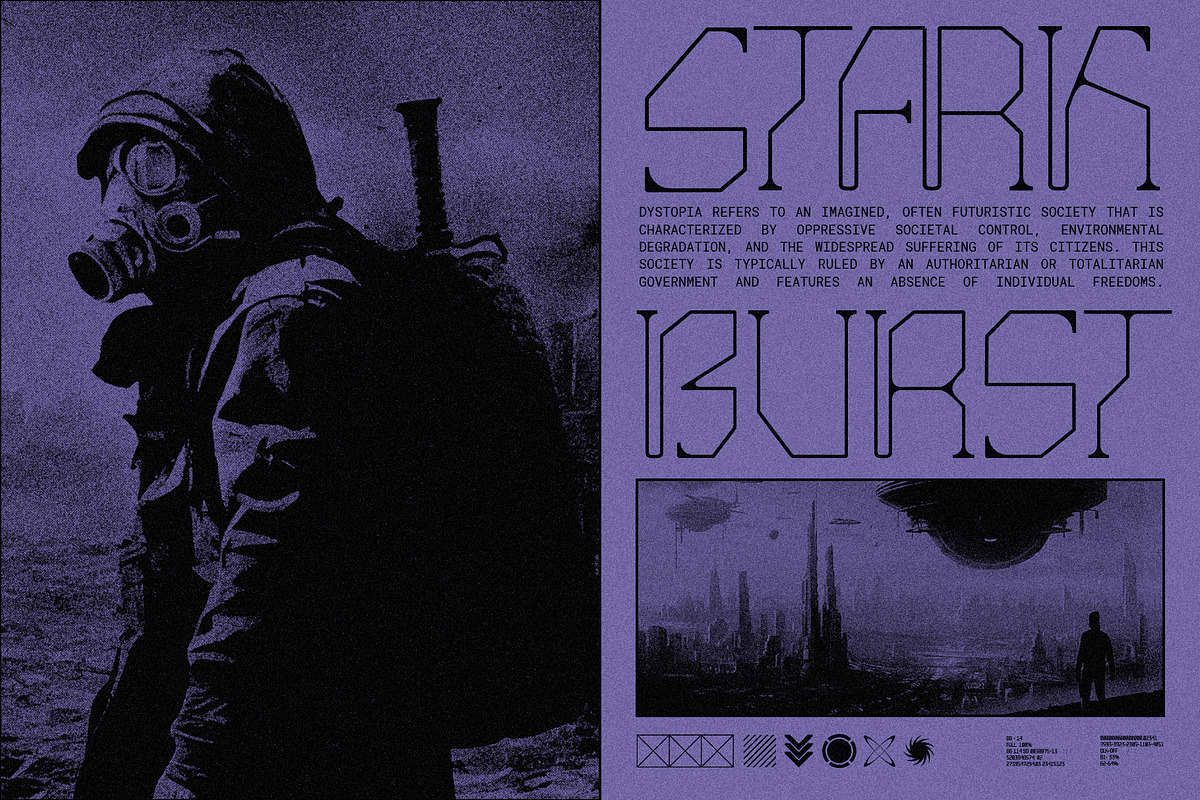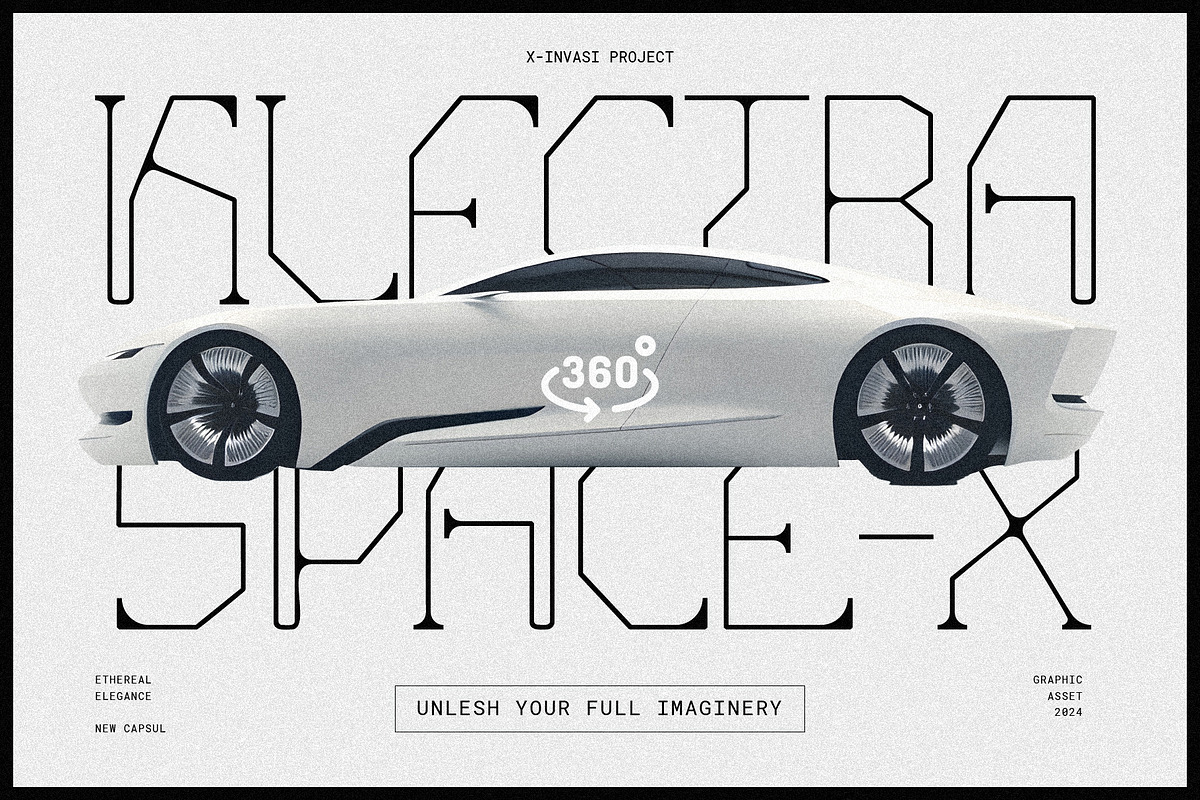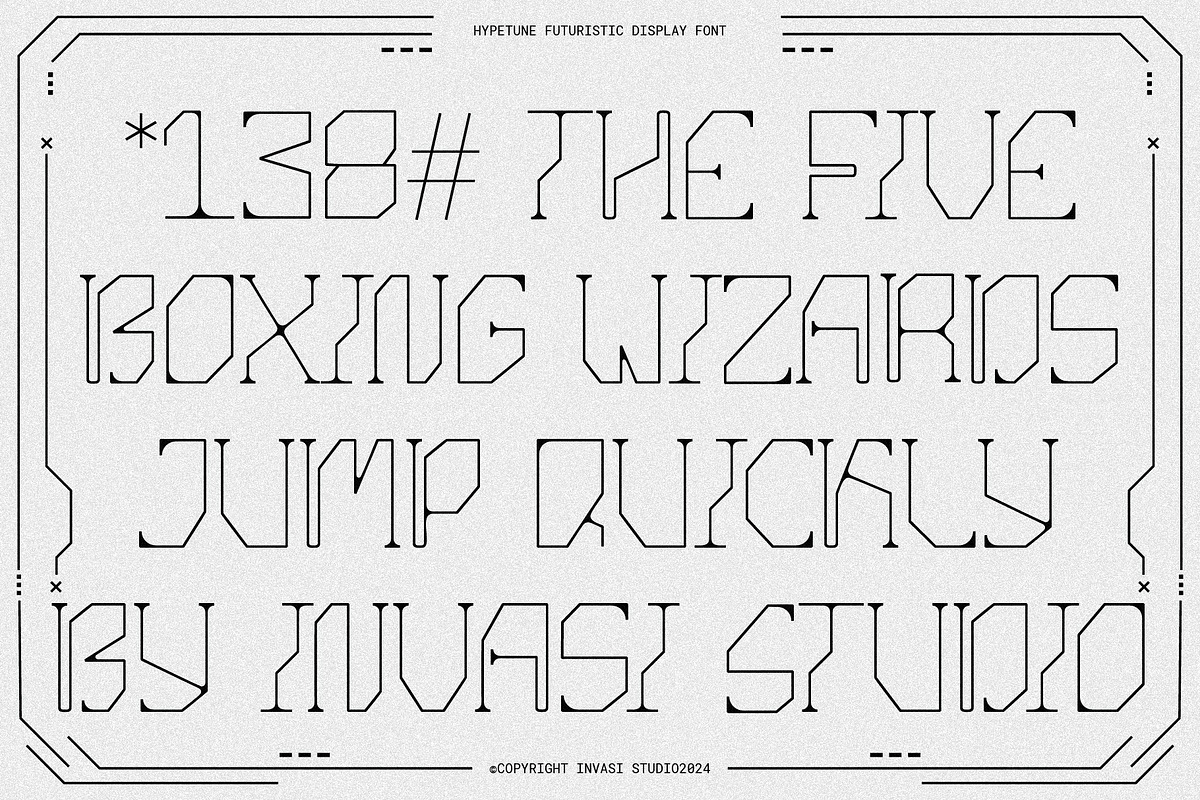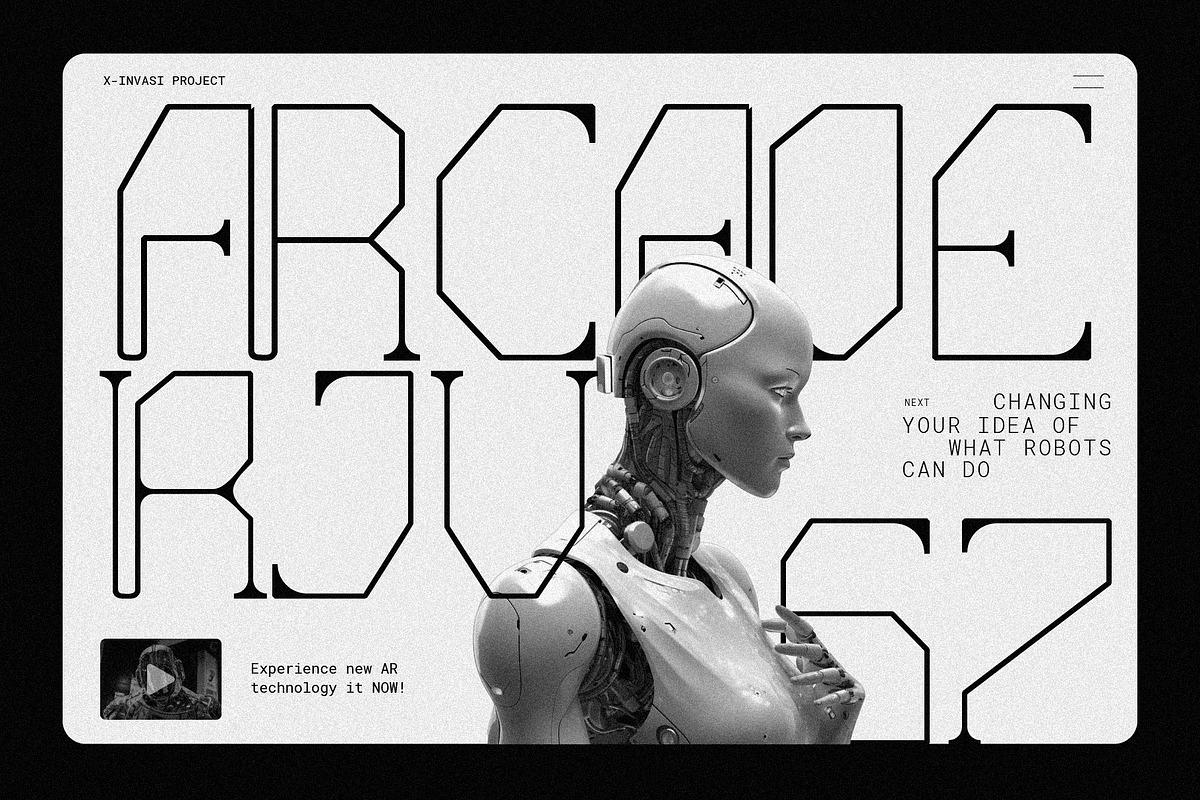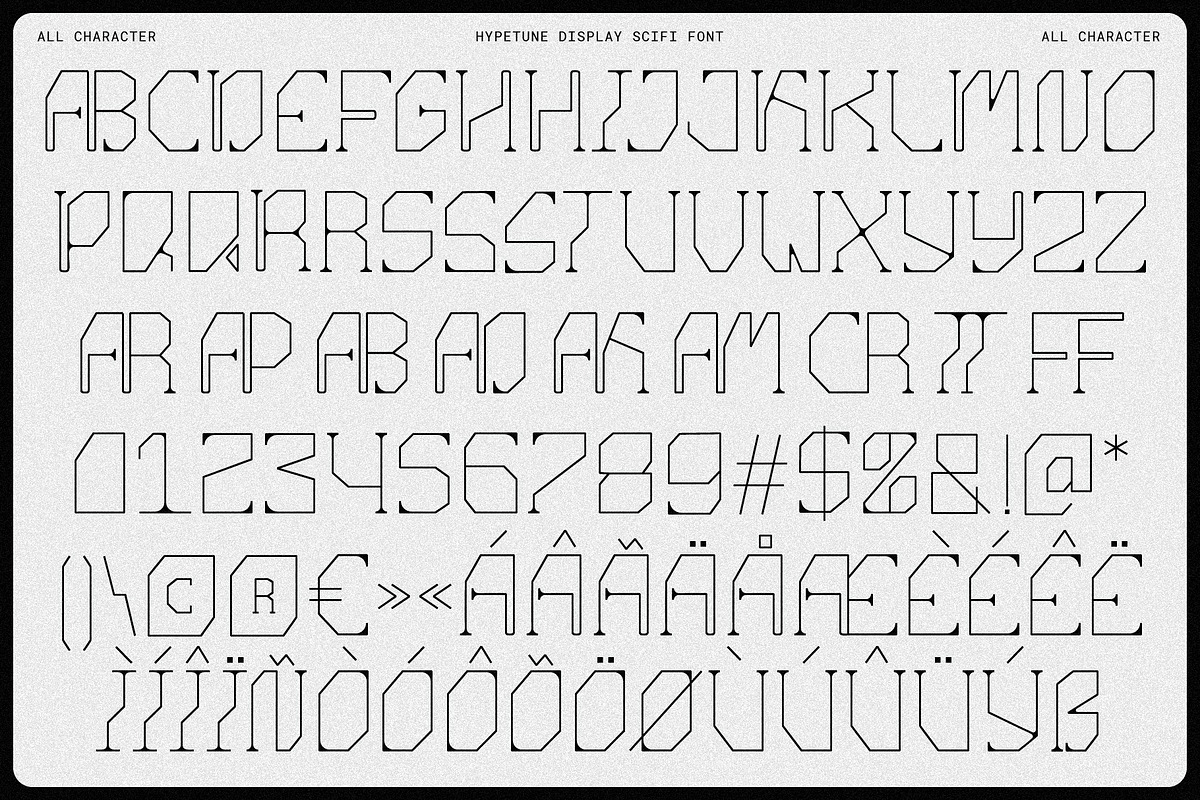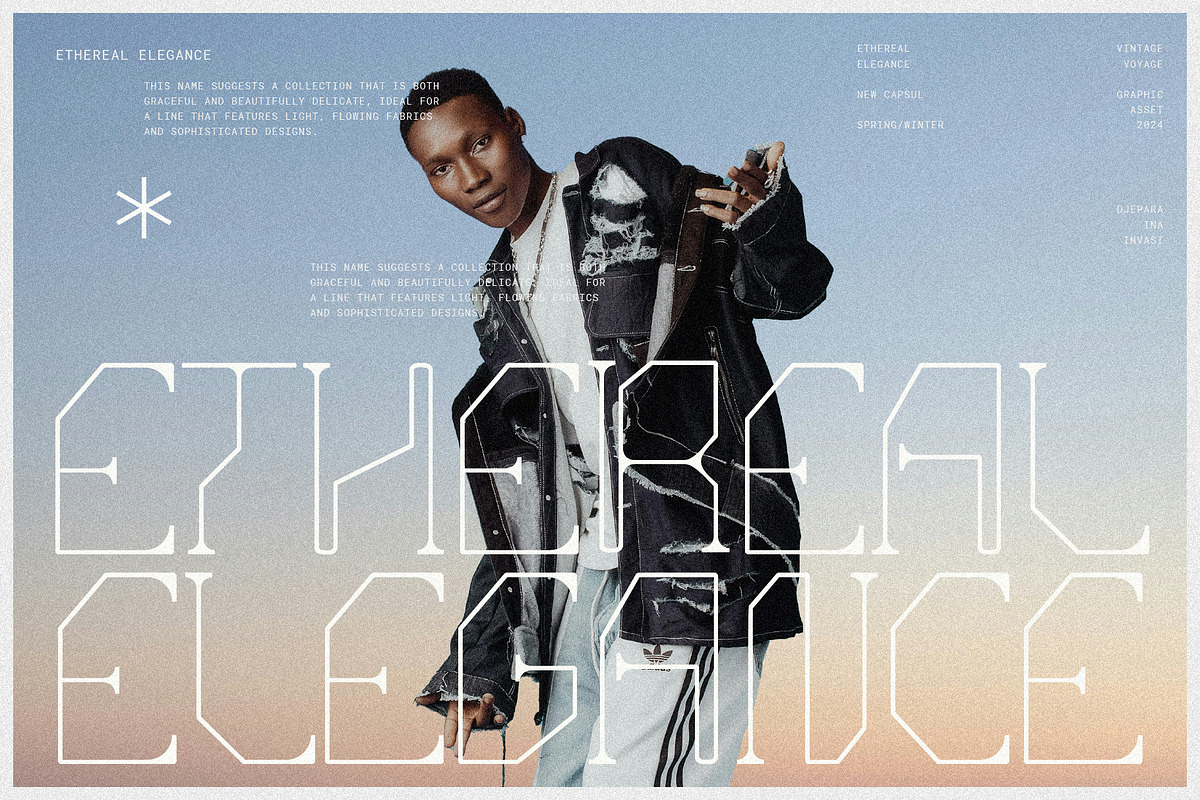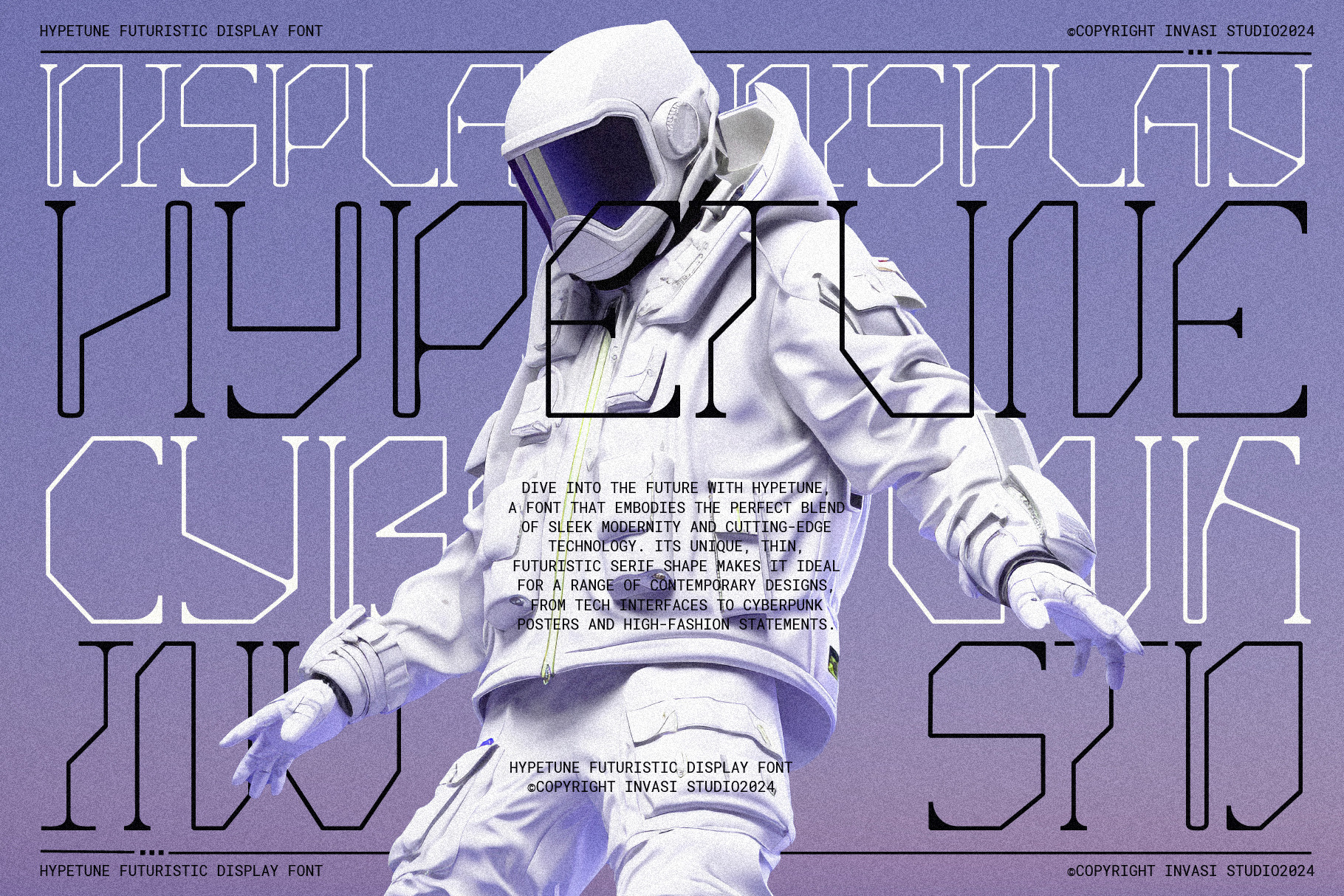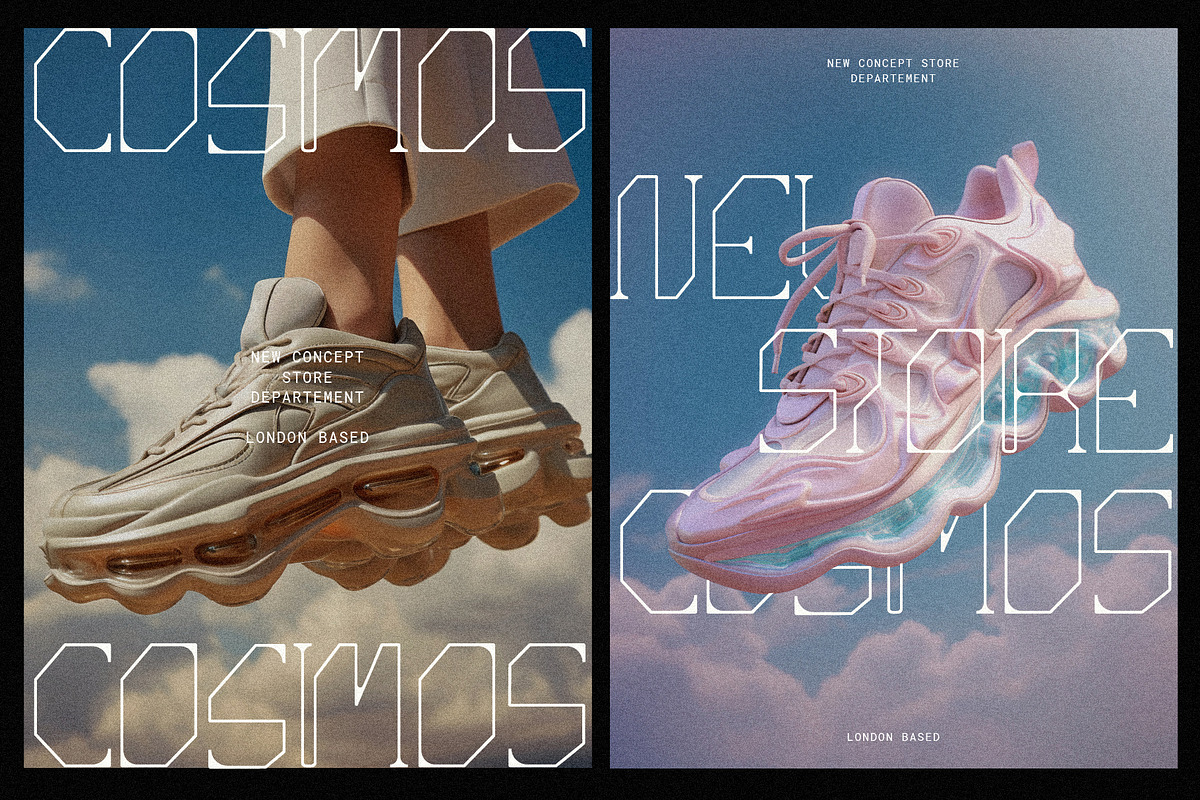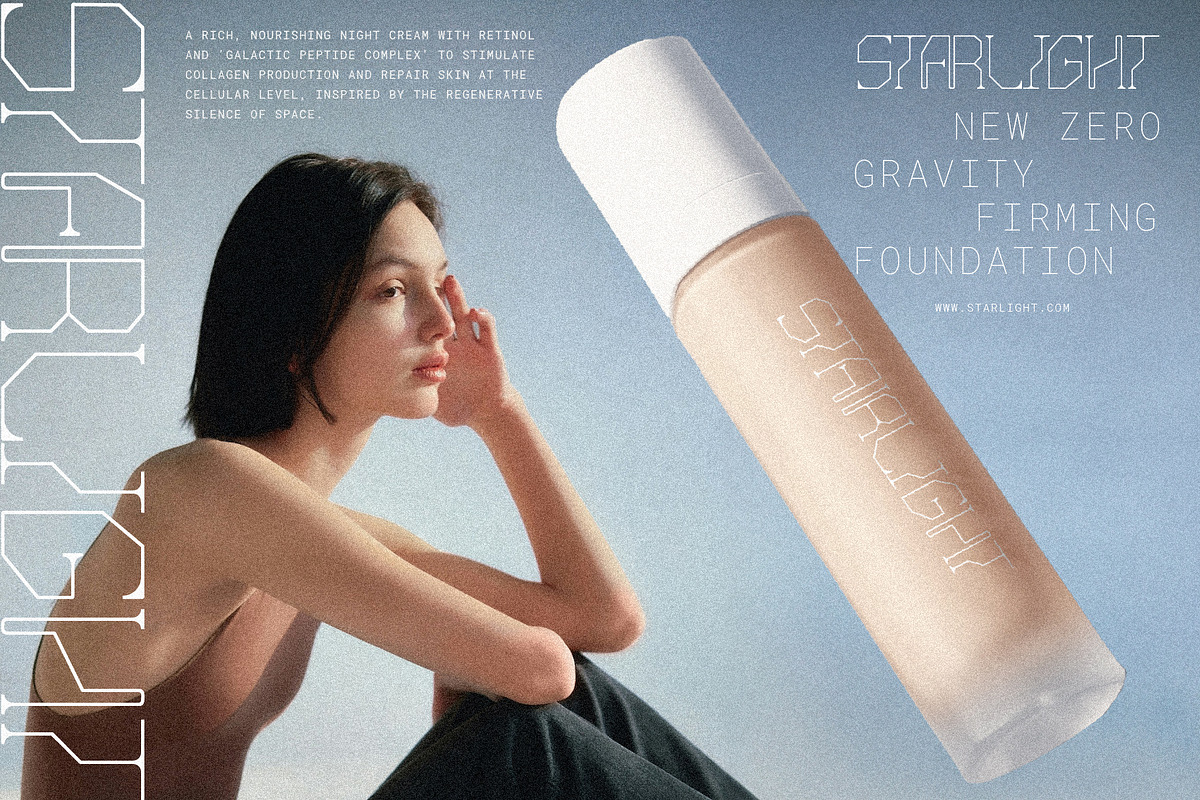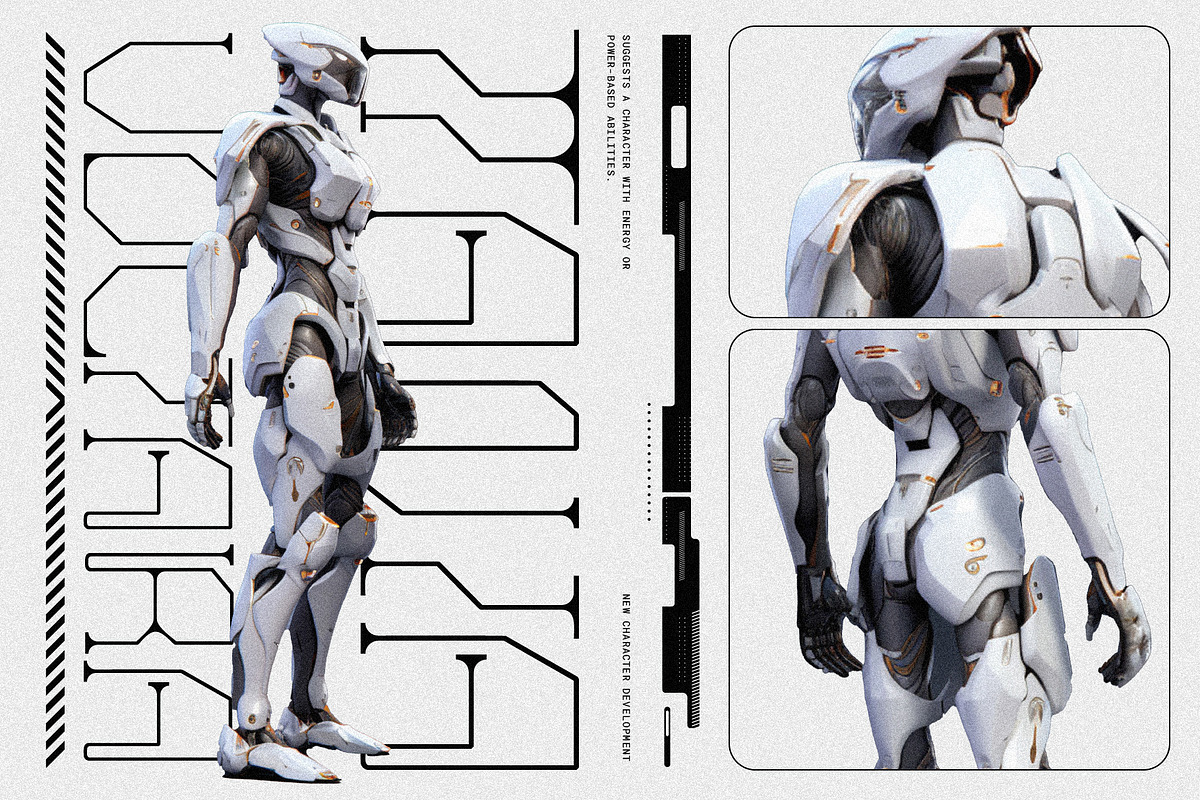
Hypetune - Sleek Futuristic Font
Dive into the future with Hypetune, a font that embodies the perfect blend of sleek modernity and cutting-edge technology. Its unique, thin, futuristic serif shape makes it ideal for a range of contemporary designs, from tech interfaces to cyberpunk posters and high-fashion statements. Hypetune's adaptability allows it to seamlessly integrate into various styles, always keeping your designs at the forefront of innovation.
Hypetune goes beyond aesthetics, offering functionality with its uppercase lettering, alternates, and multilingual Latin support. This font is a powerhouse for creative expression, versatile enough to meet a broad spectrum of design needs. Let Hypetune be your design compass, guiding you to a future where your creations set the trends and push the boundaries.
- Stylistic Alternates & Ligatures
- Multilanguage Supports 60+ Latin-based languages